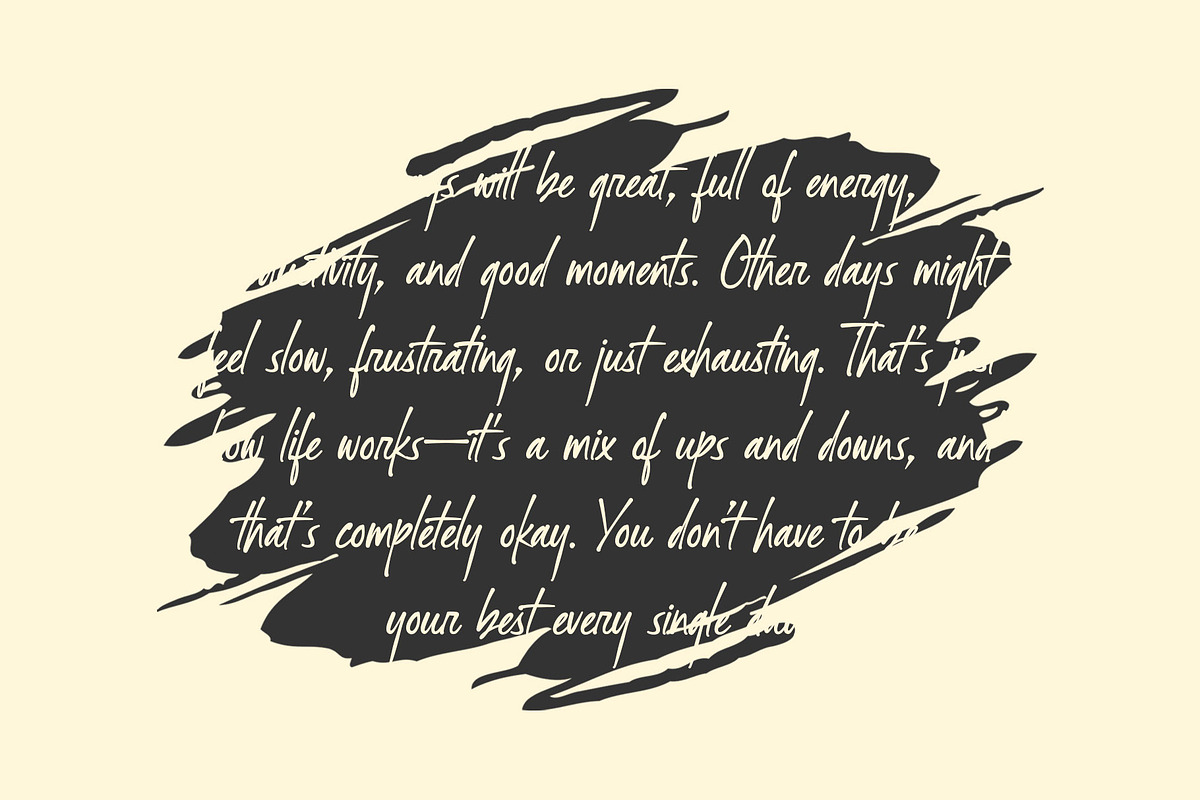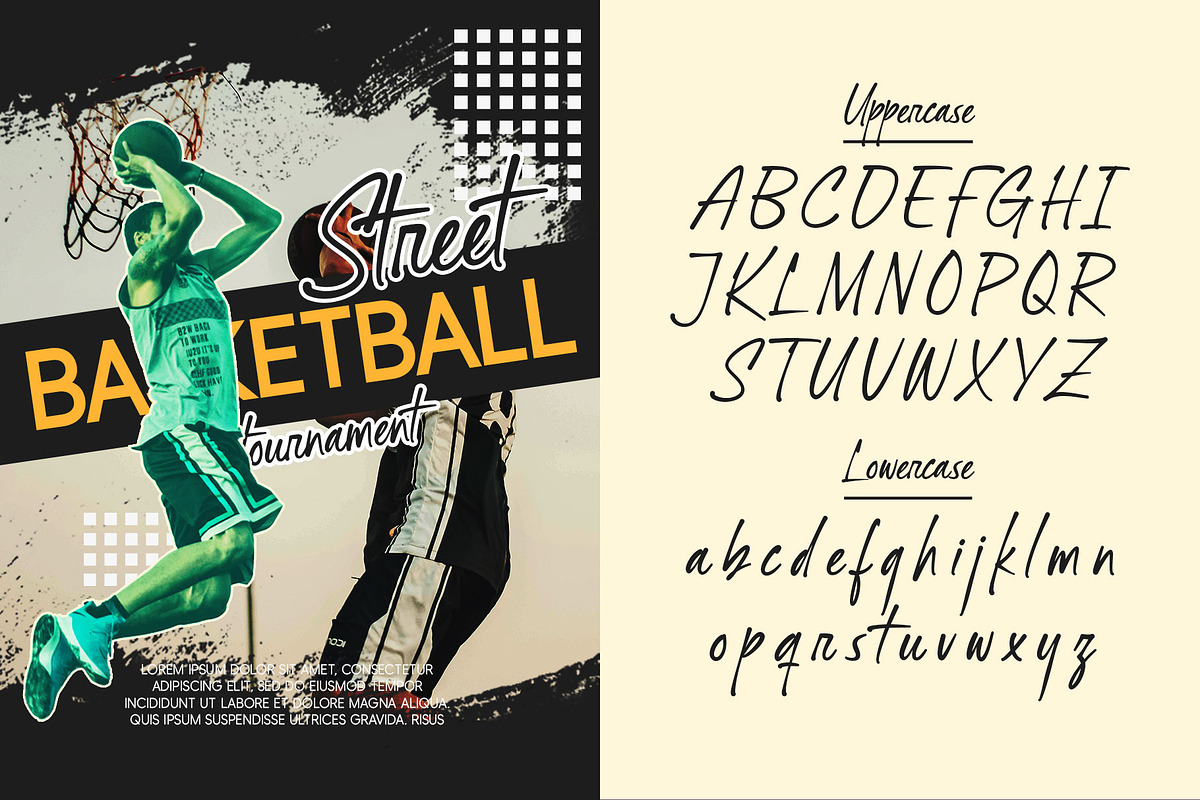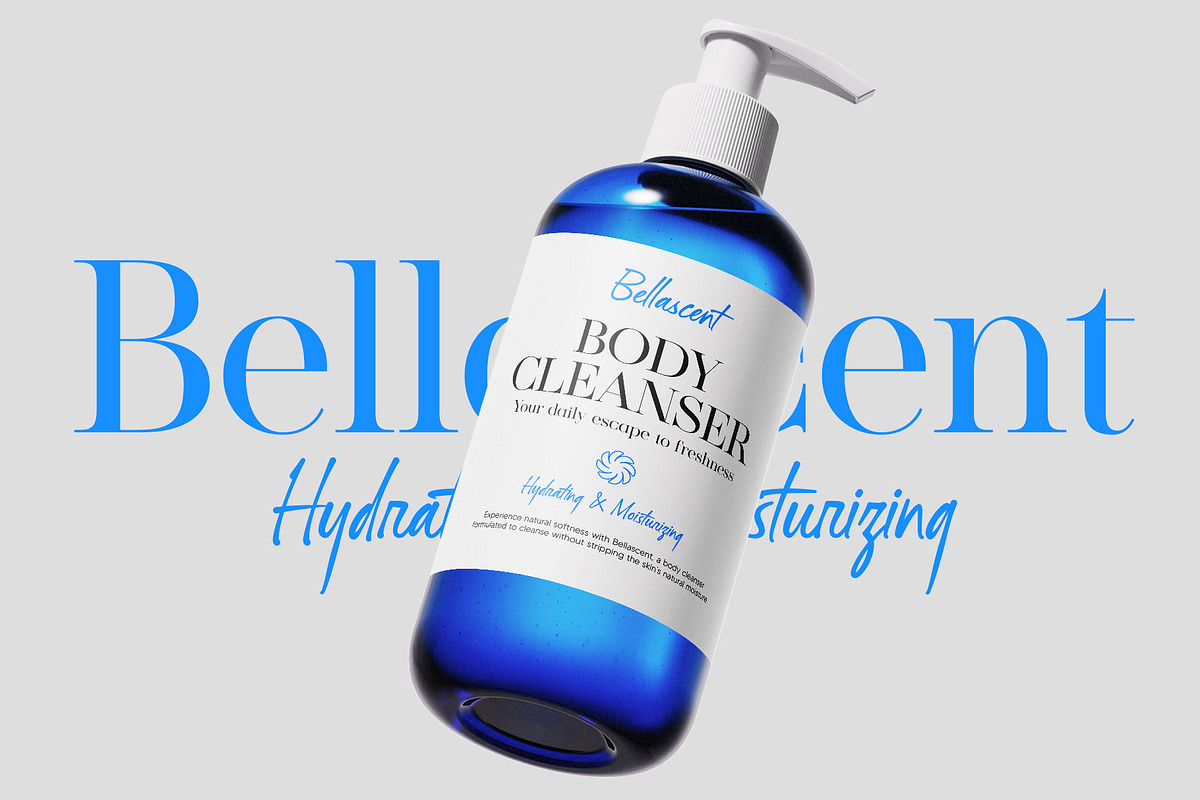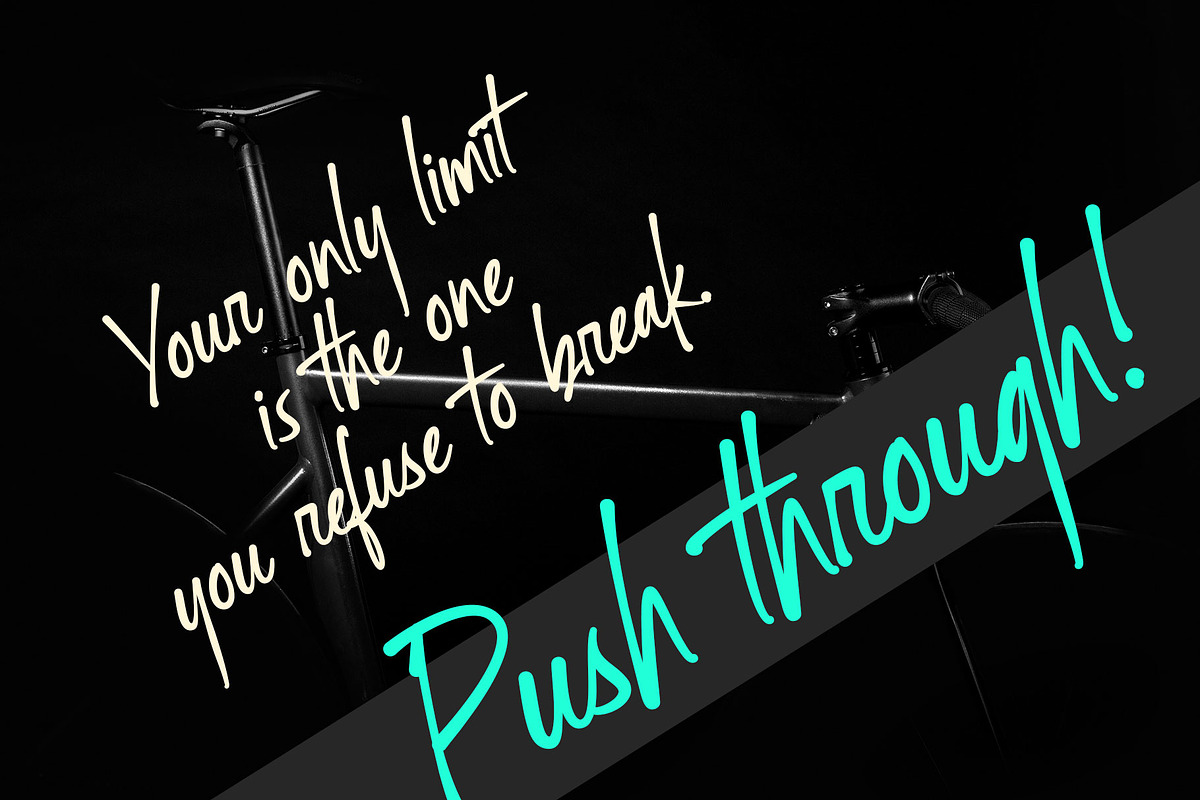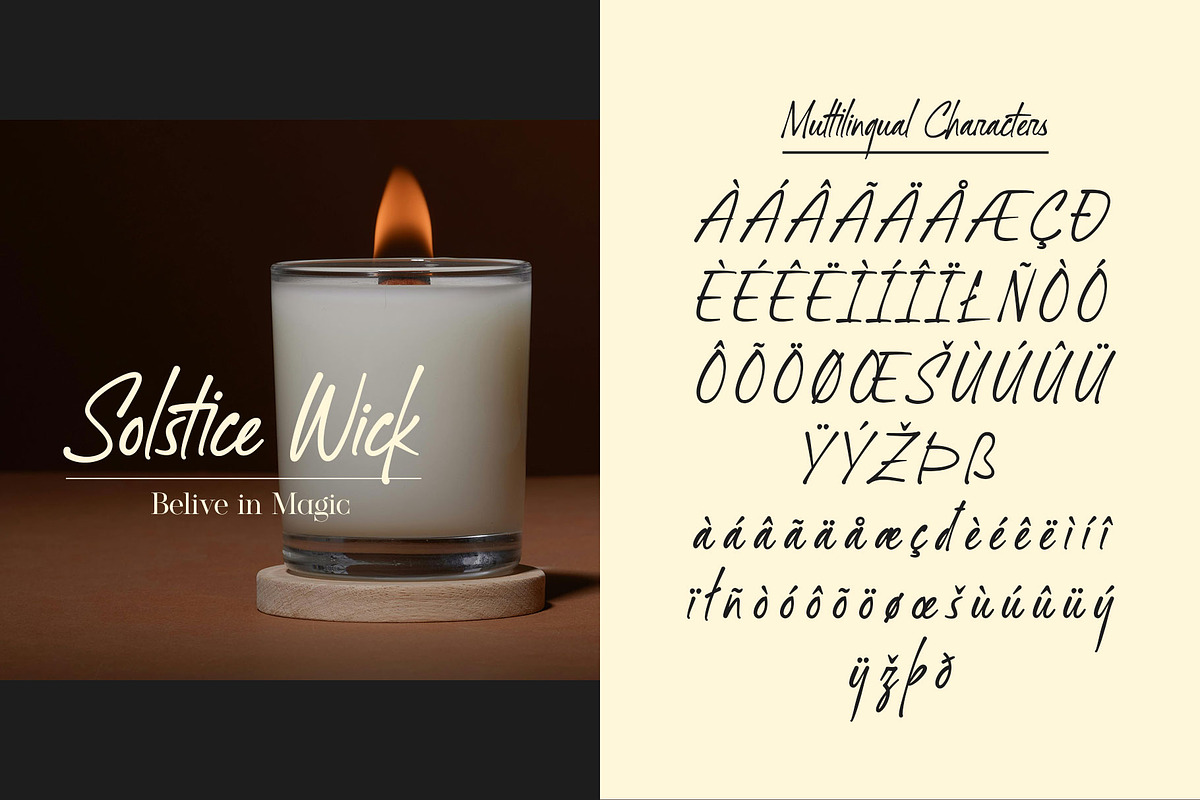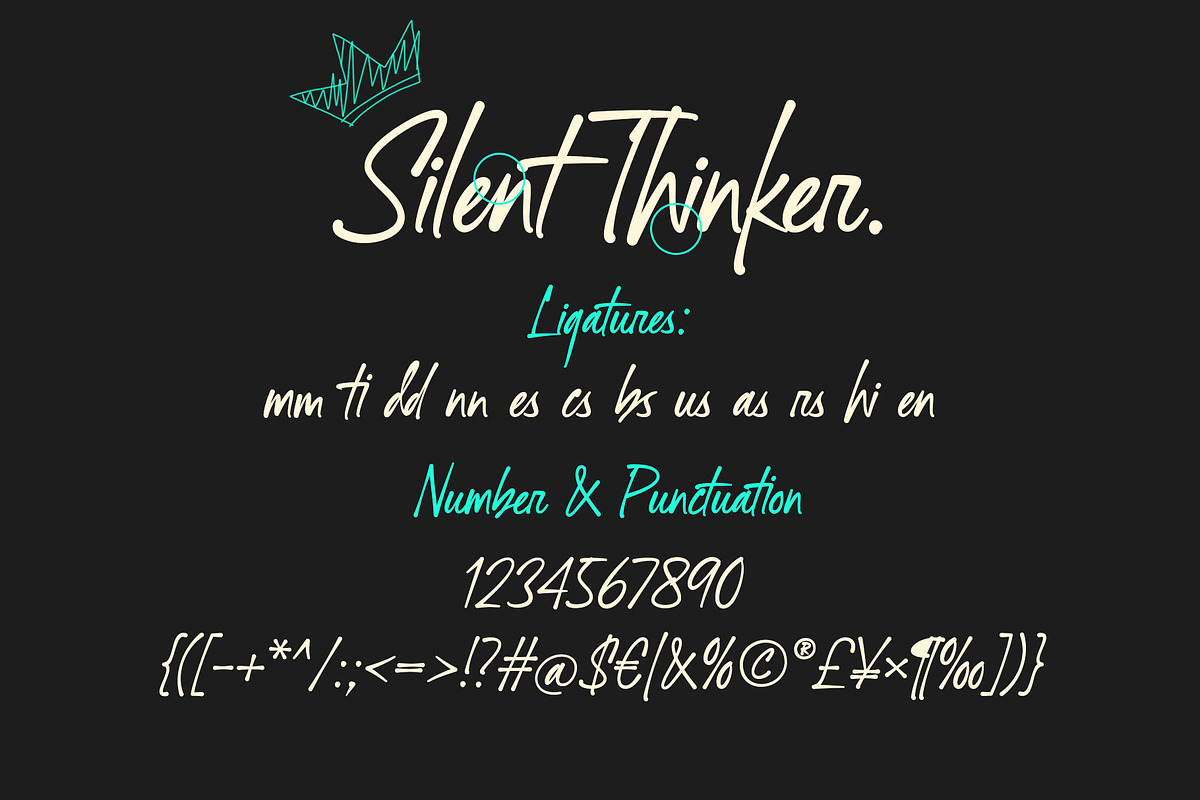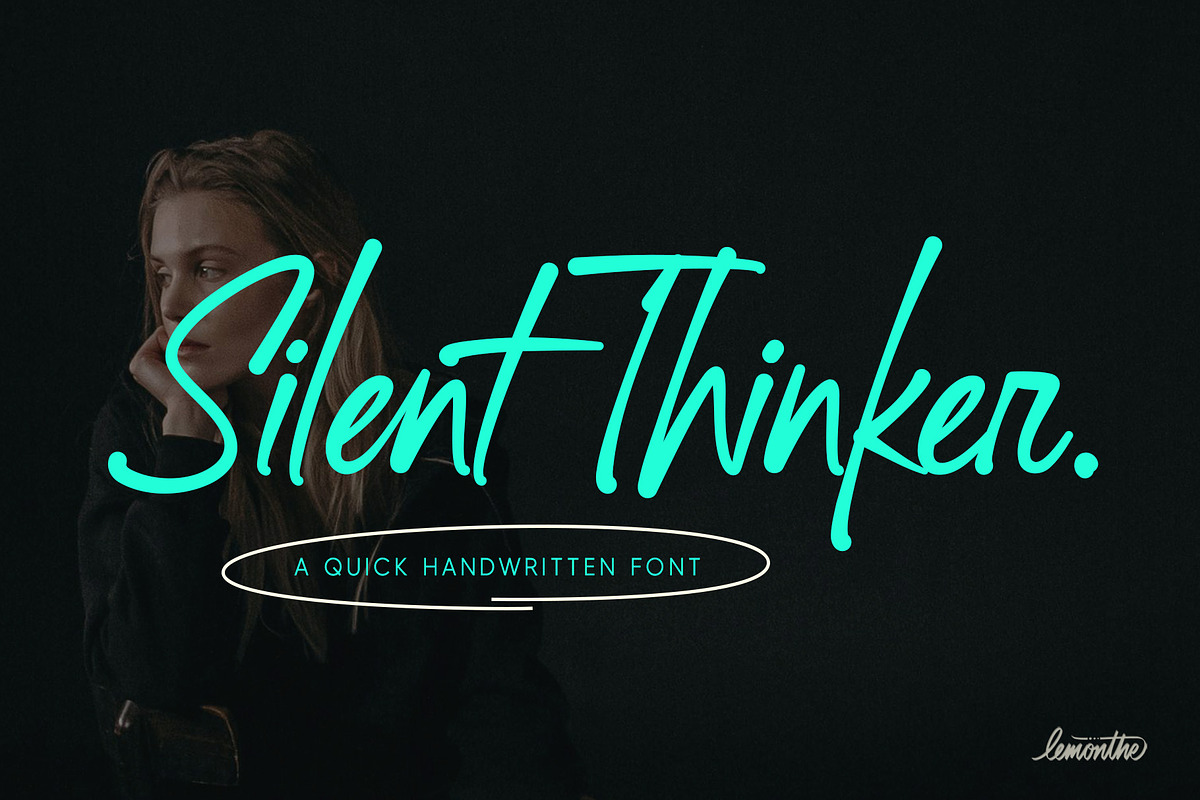
Silent Thinker | Quick Handwritten
Silent Thinker is a handwritten font that combines swiftness and expression. With swift strokes and dynamic letterforms, this font conveys a spontaneous, energetic, yet elegant feel. It is perfect for branding, motivational quotes, product packaging, social media designs, and creative projects that require a natural and characterful handwritten touch.